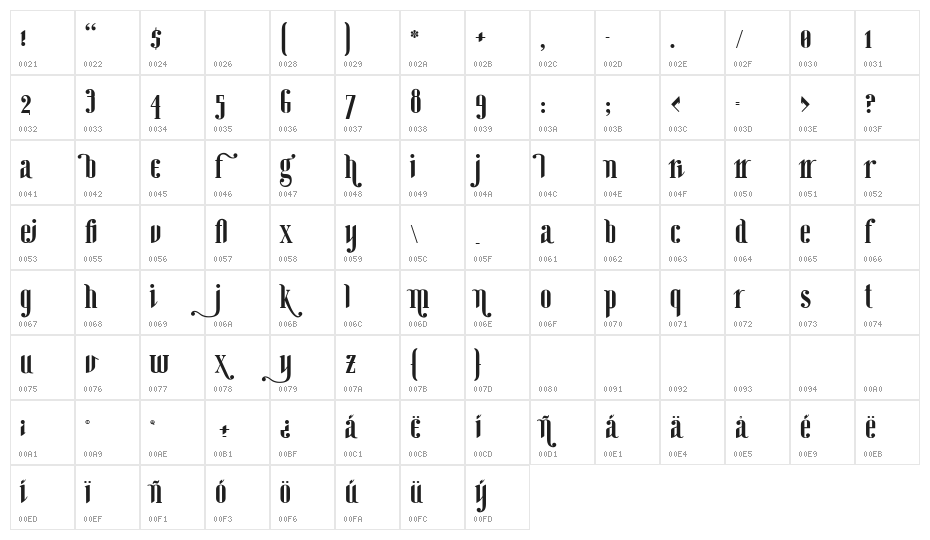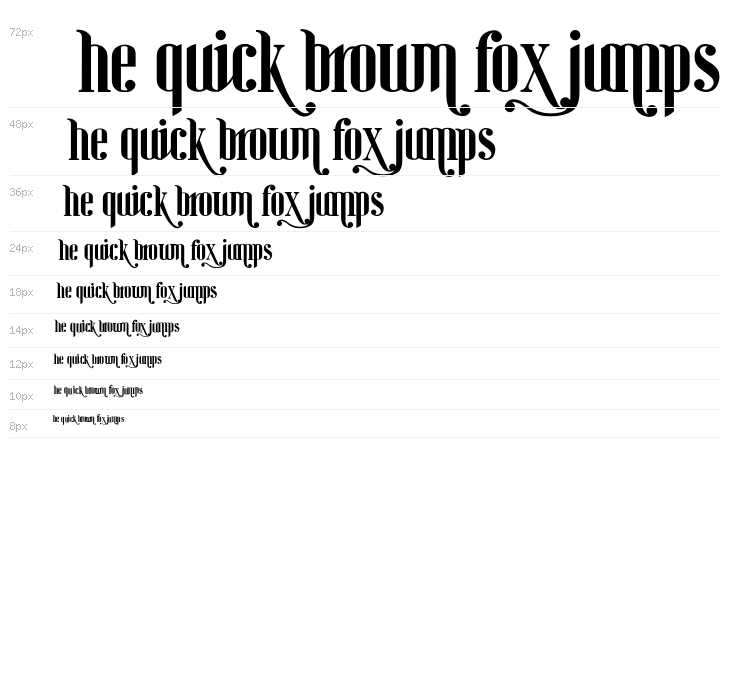
Ginebra Bolds Font
Ginebra Bolds Description
This font features a bold and dramatic style with high contrast between thick and thin strokes. The characters have a distinct vertical emphasis, with elongated ascenders and descenders that add a sense of elegance and sophistication. The serifs are pronounced and sharp, contributing to a classic yet modern aesthetic. The uppercase letters are particularly striking, with unique flourishes that make them stand out. The numbers and special characters maintain the same boldness and style, ensuring consistency across all elements.
| Proposed Projects | Ideal for use in branding, headlines, posters, and any project that requires a strong, impactful visual presence. |